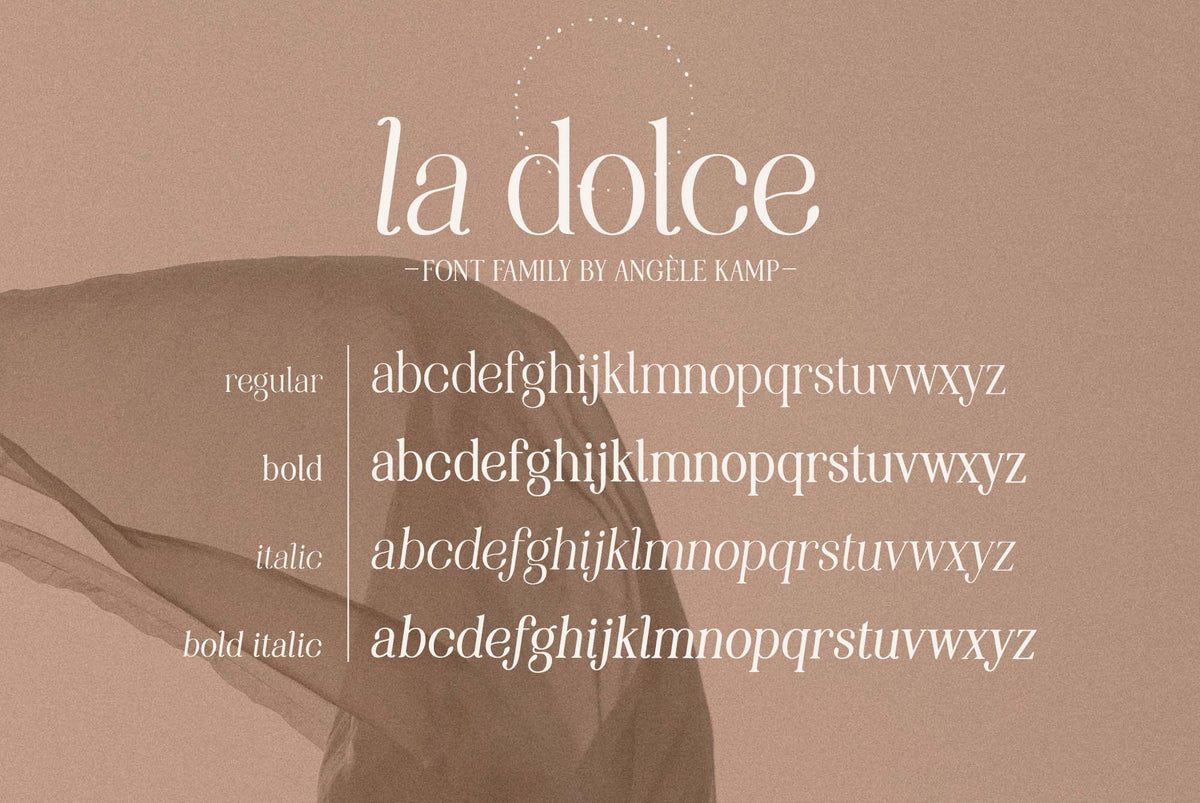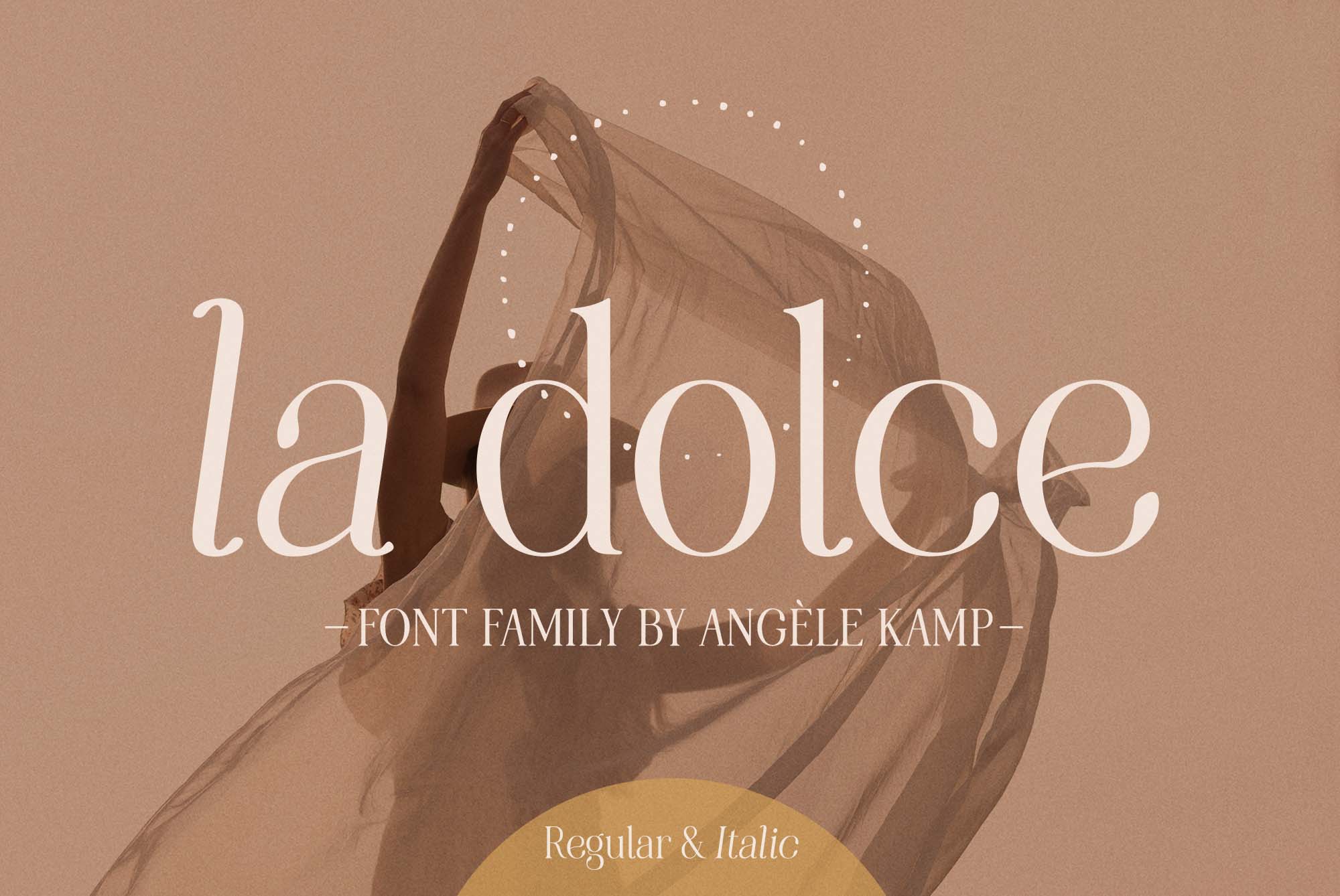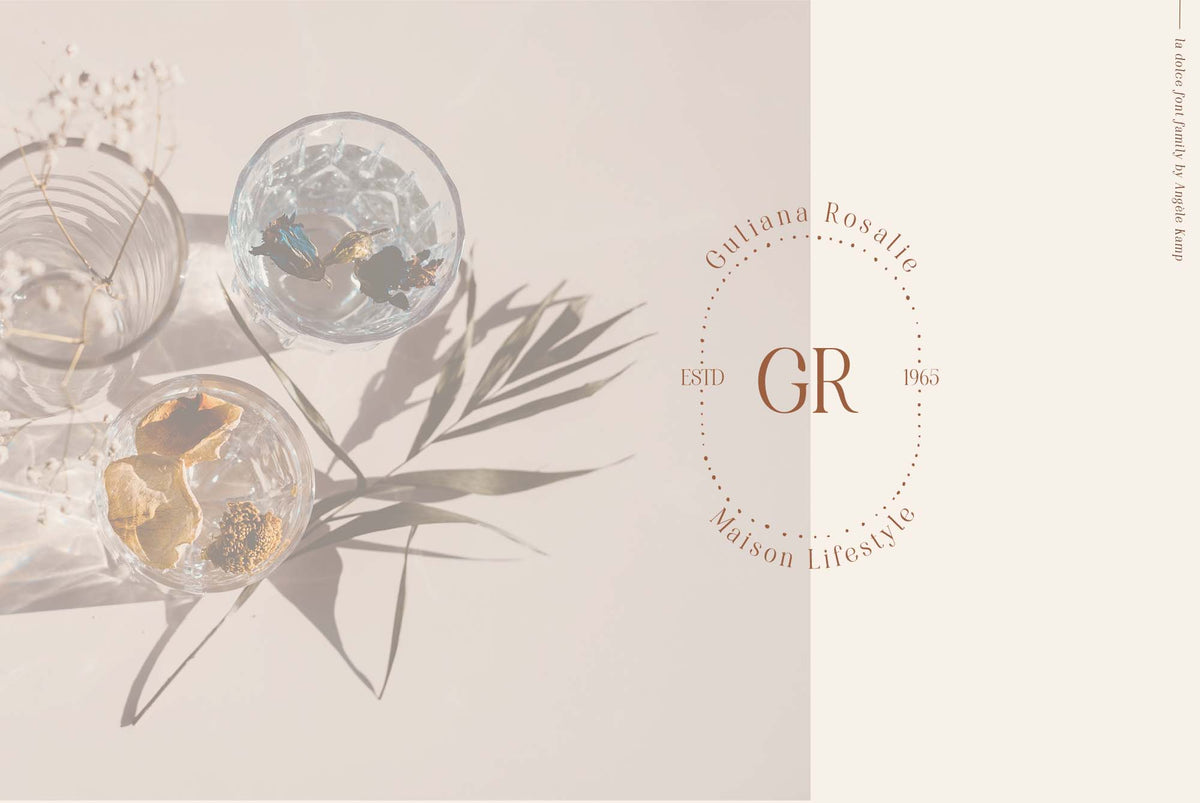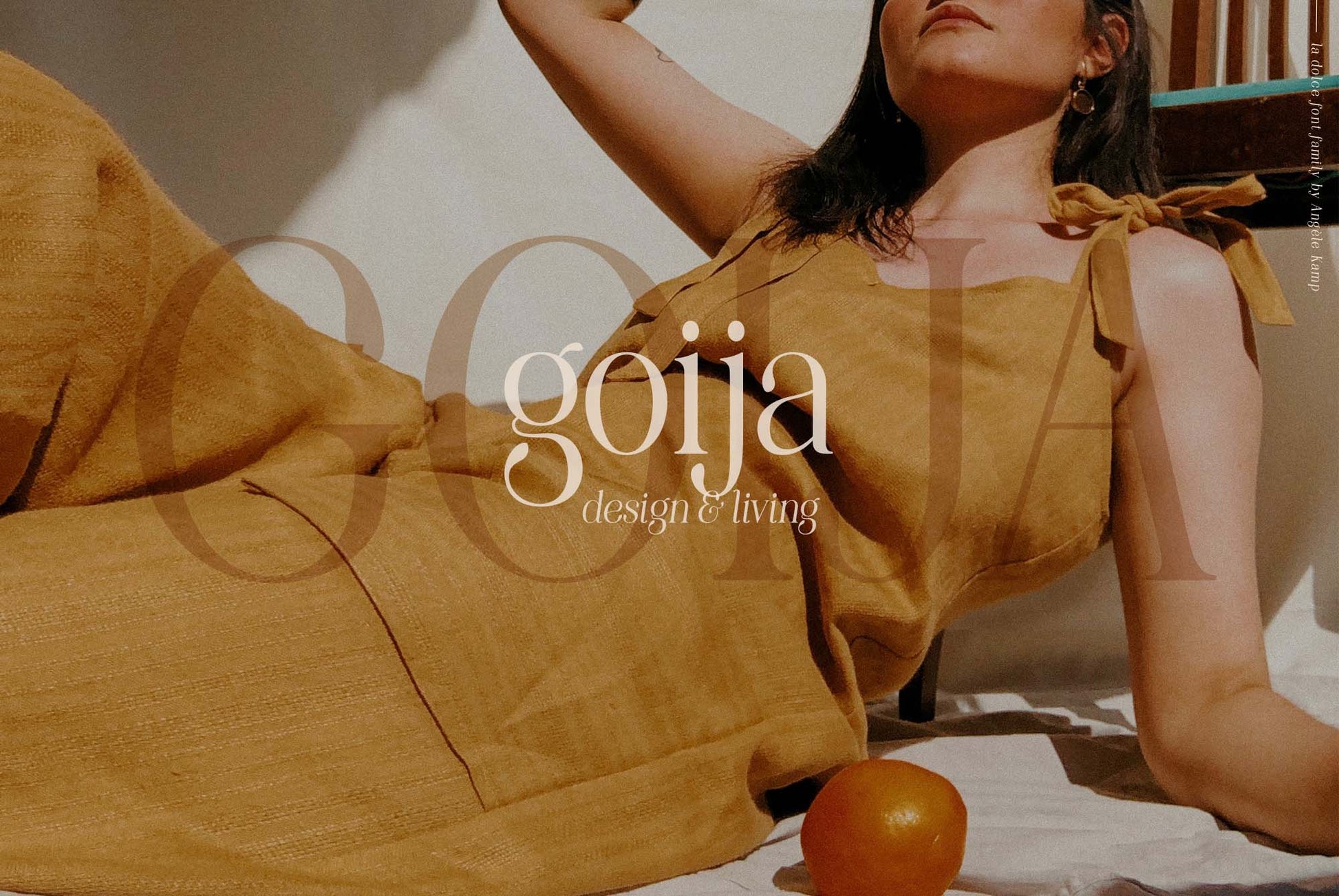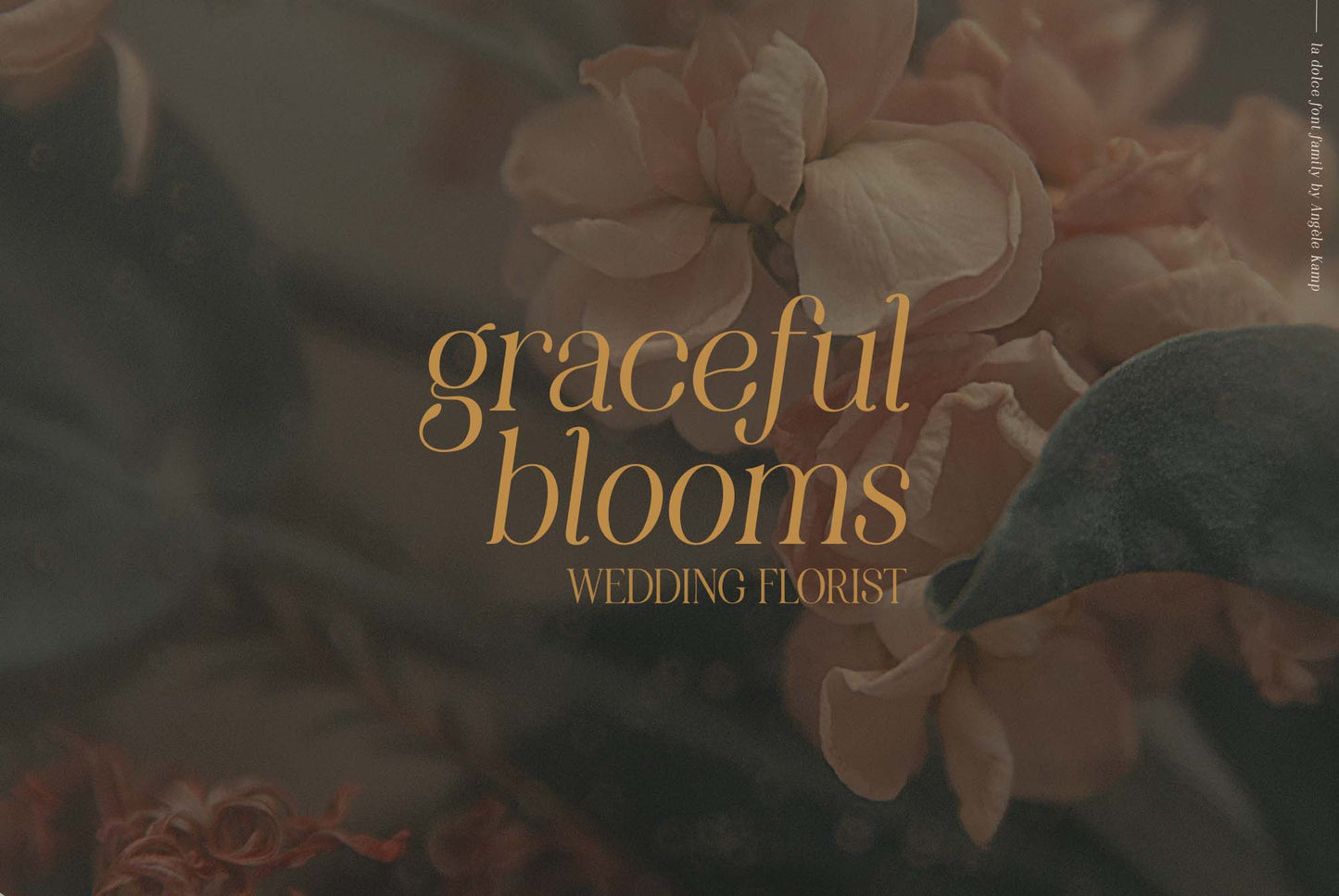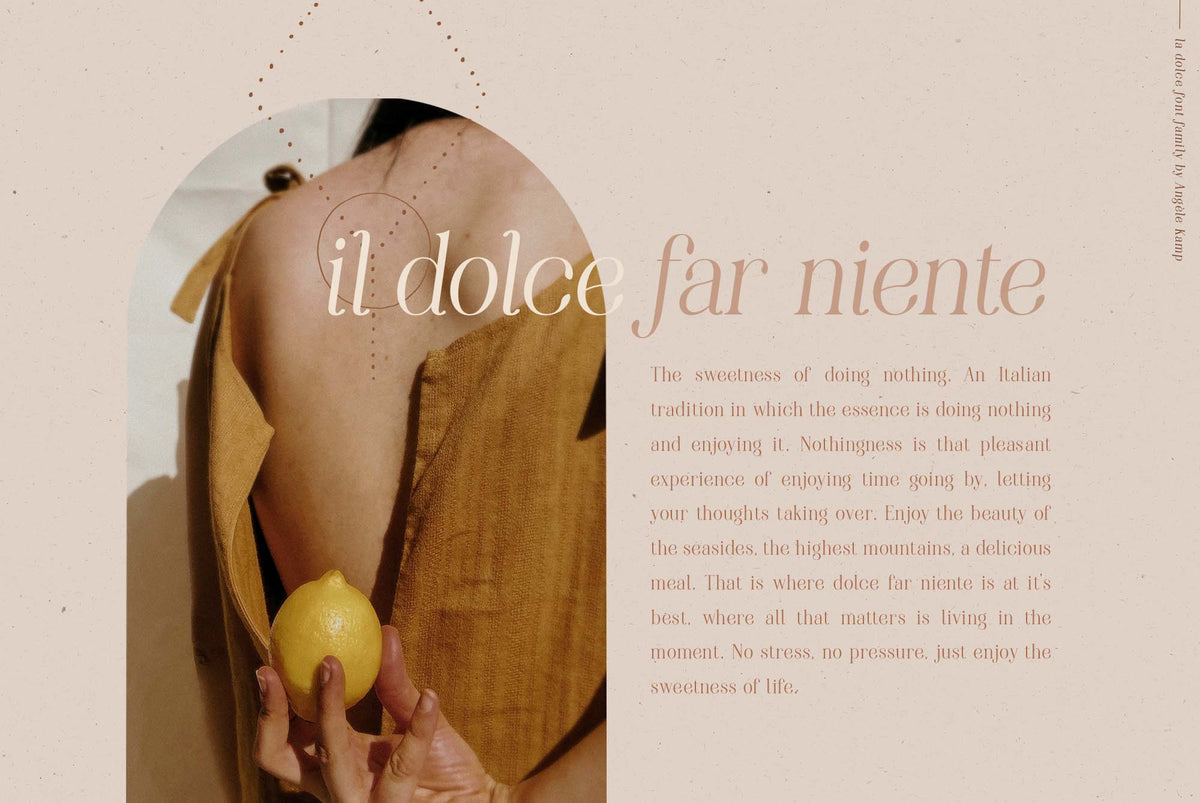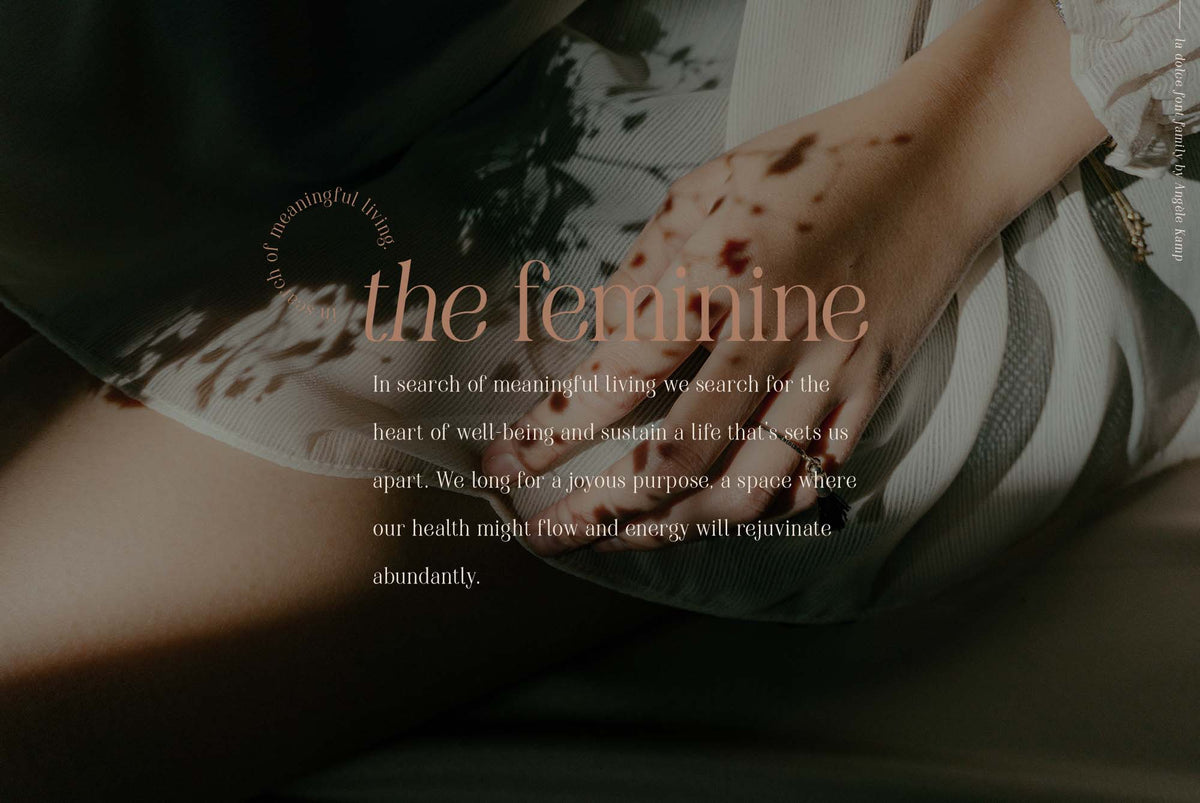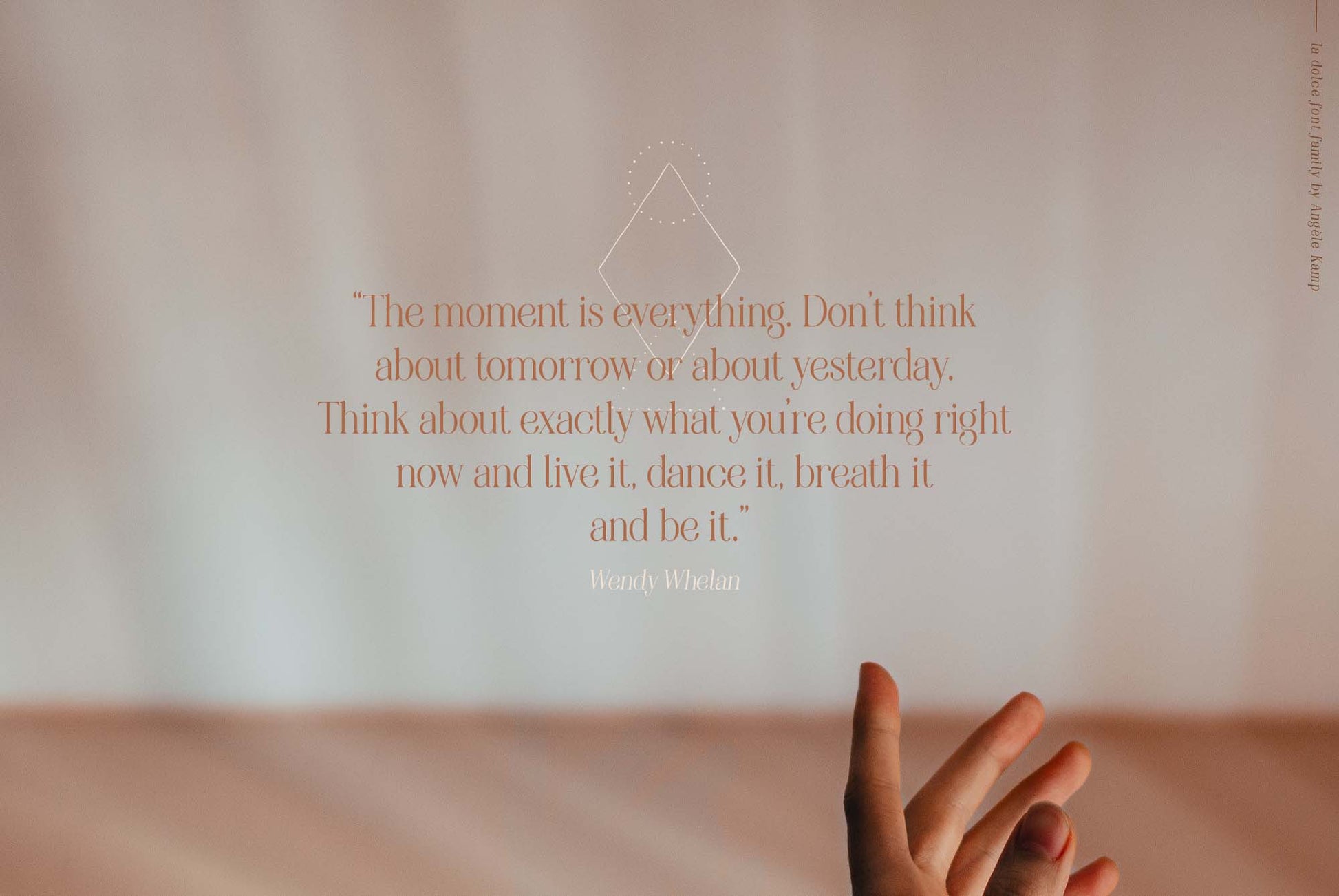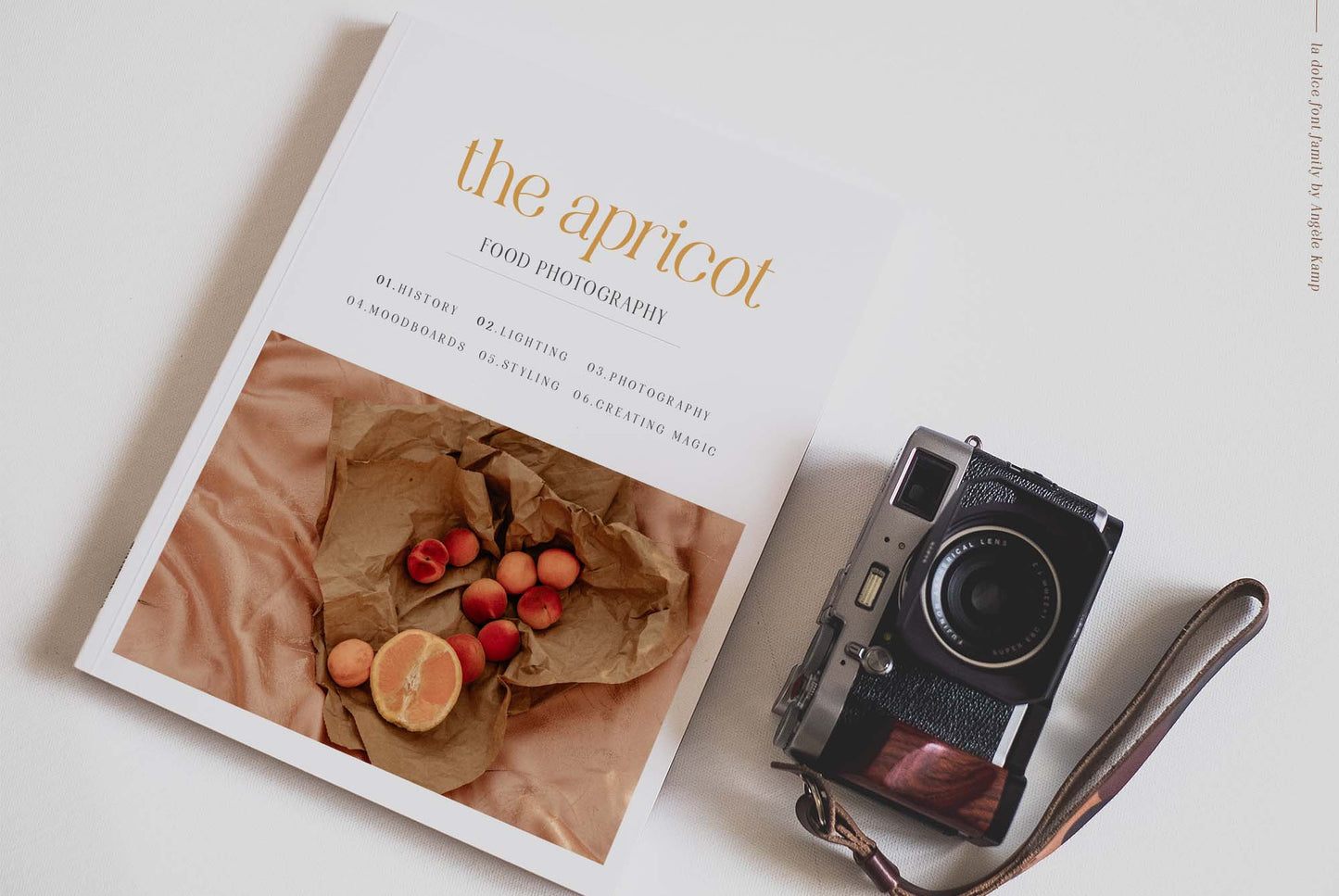
La Dolce font family
La Dolce is an elegant font family with a feminine style. This beautiful collection will instantly add class to all of your design projects. As a bonus, you will receive 9 hand-drawn shapes that complement the fonts perfectly.
This stylish font family is timeless and can not be missed in your font collection. It is the perfect branding font and will help you to easily create logos, wedding designs, and all other commercial projects.
This serif font family is the definition of class & high fashion. It's a combination of young urban, luxury, classy, nostalgic and vintage all rolled into one. Don't wait to add this luxury font family to your collection and start designing straight away.